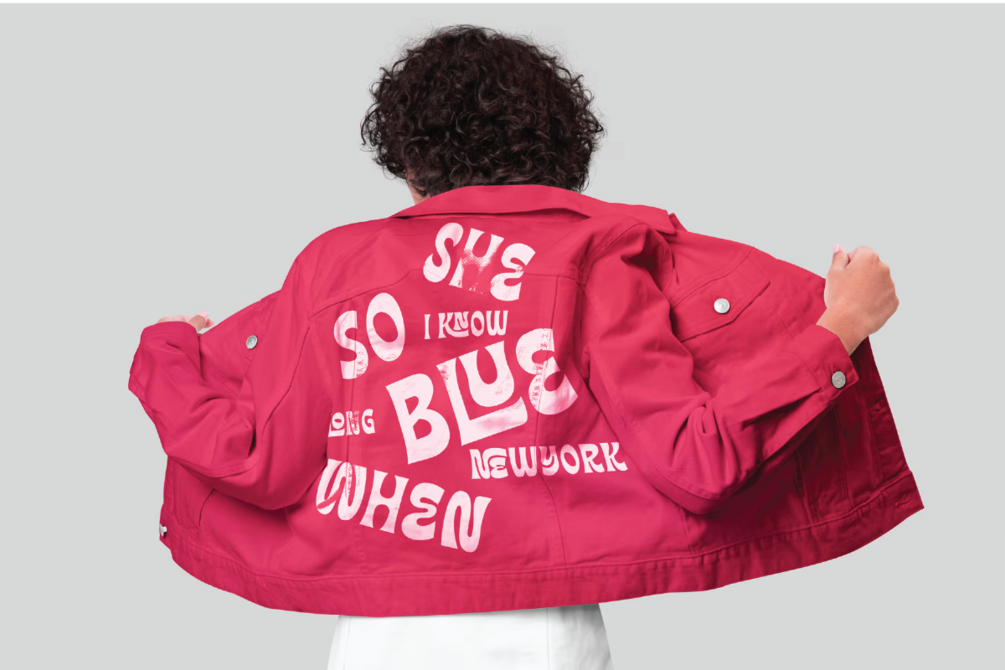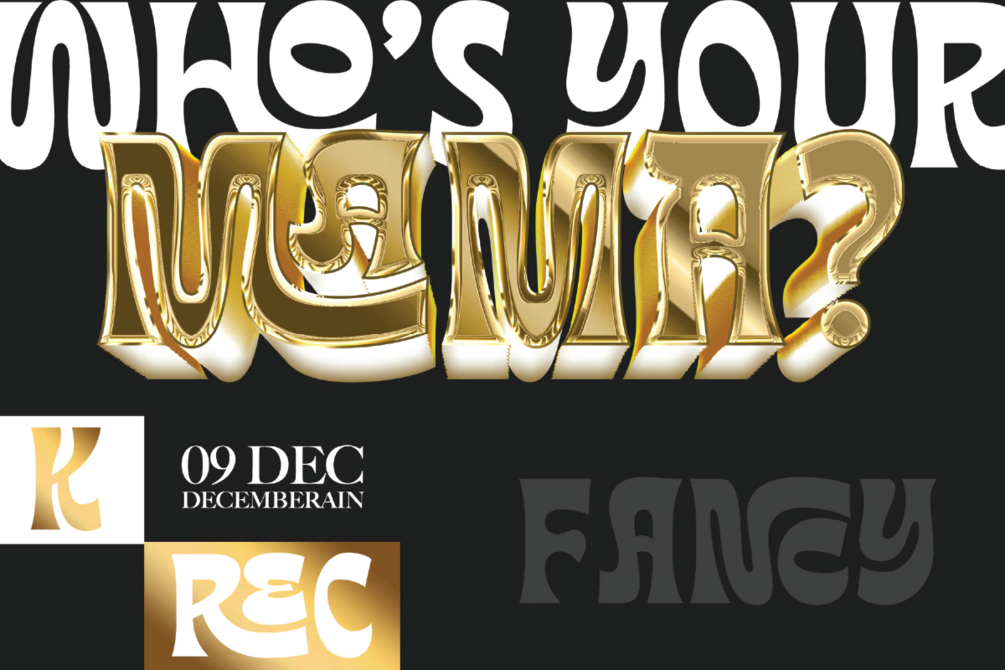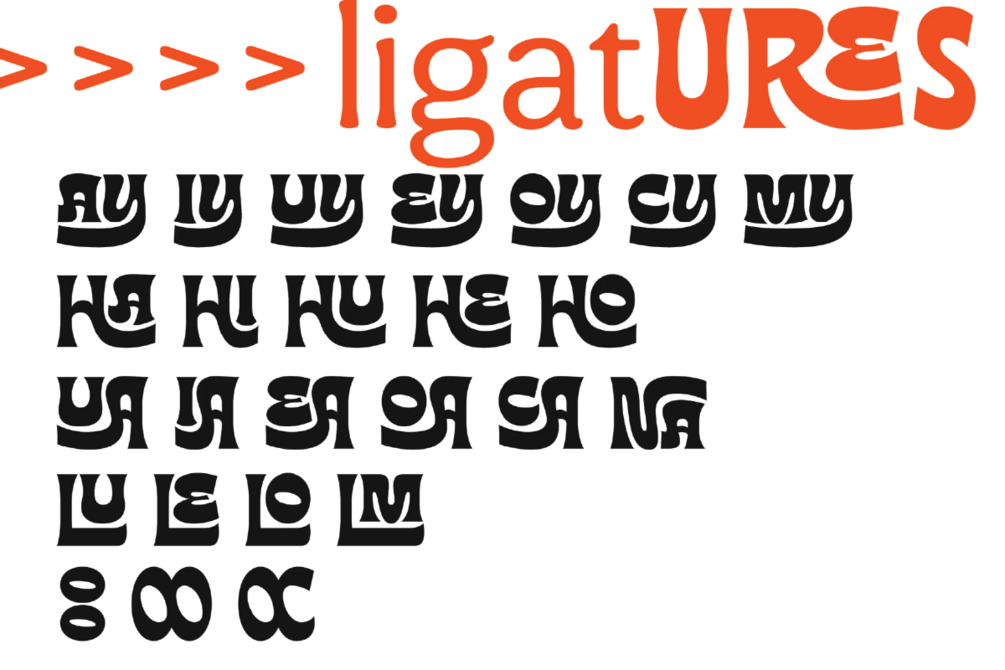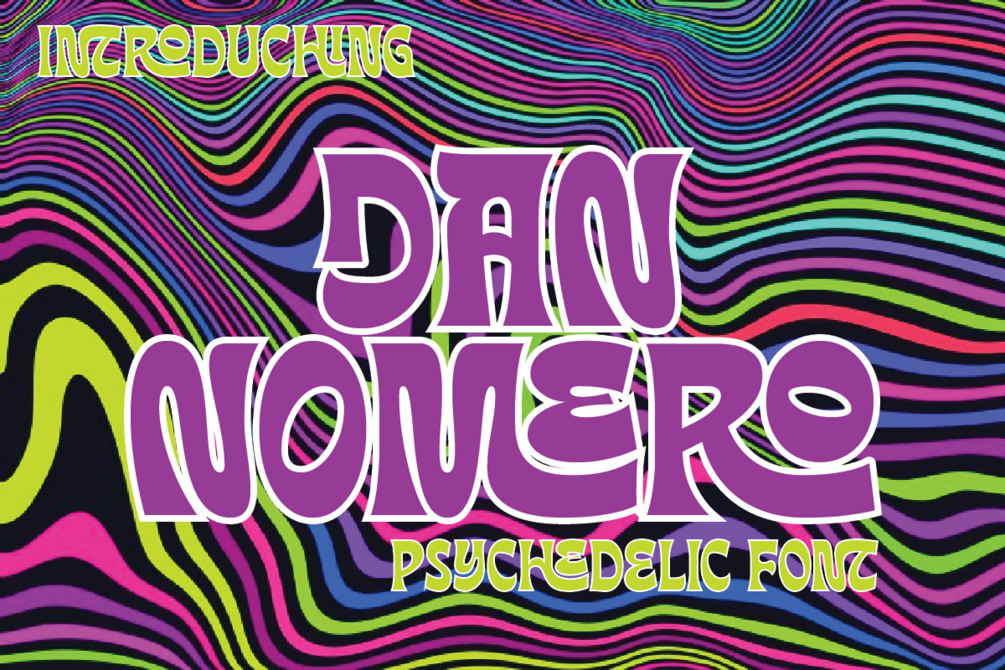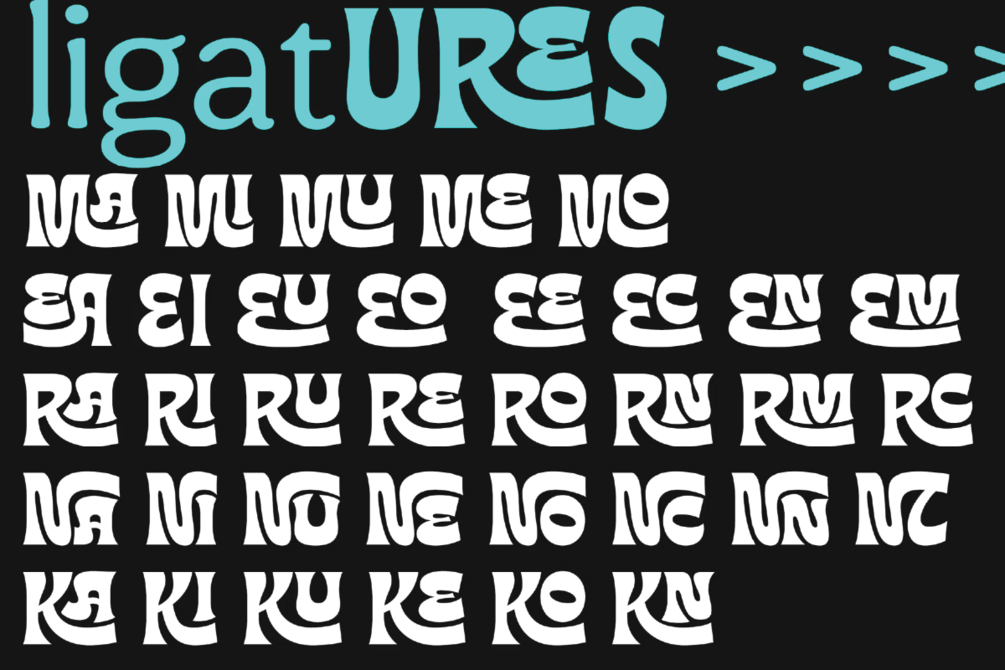
Nomero
Nomero Modern font. This font would be perfect for photography, watermarks, social media posts, advertisements, logos & branding, invitations, product design, labels, stationery, product packaging, special events, and other projects.